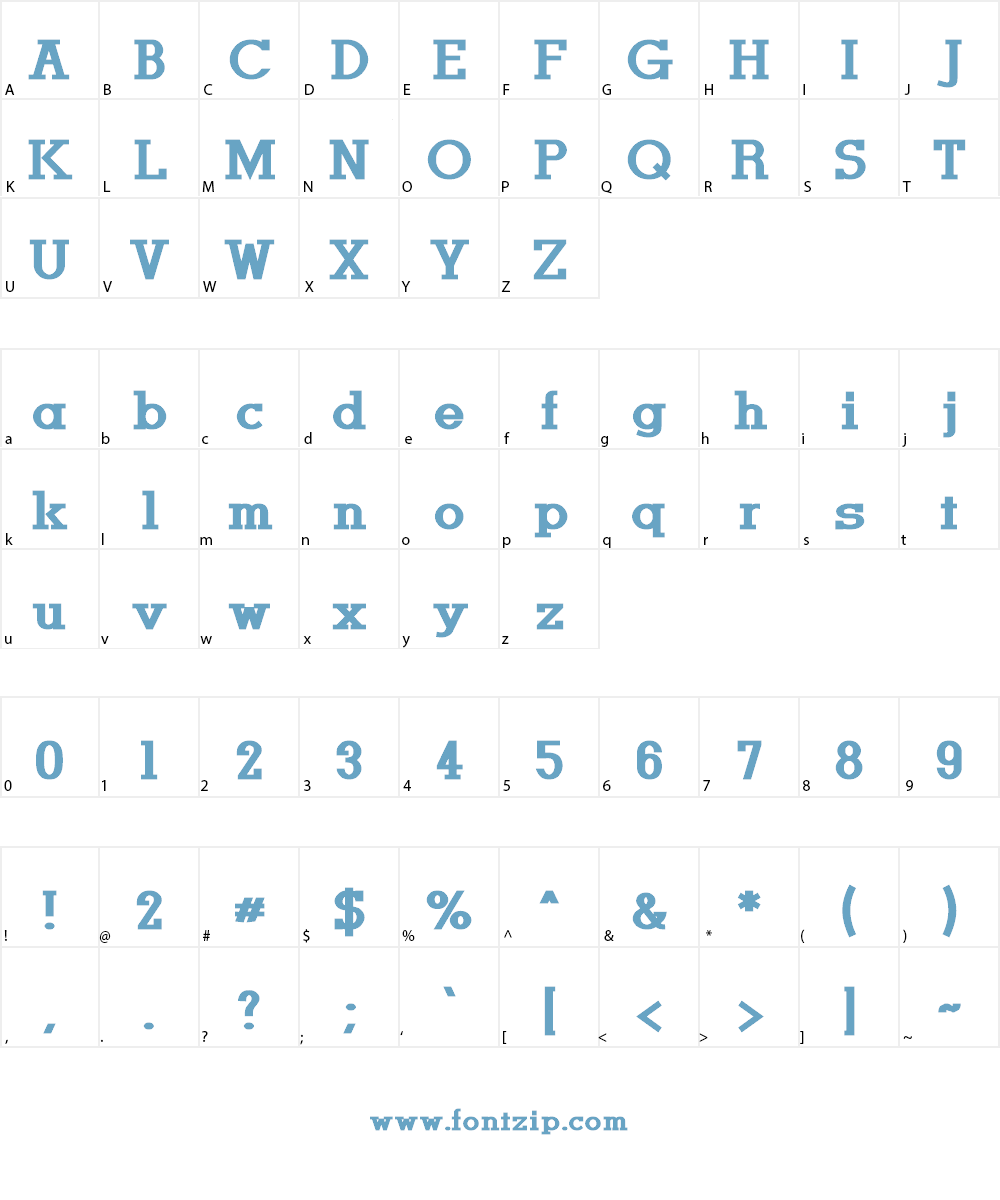
The Egyptienne was the beginning of the 19th Century England in response to the increased demand for eye-catching signage. The first was published in 1815 by Egyptienne Vincent Figgins. Mentioned for the first time the slab serif font in a few types of printing in 1820, and that in a list of auction type foundry Thorne. They were called "Egyptienne" even though they had nothing to do with the Egyptian writing. The name commemorates the name of the hijacked by the British ship that brought the Rosetta Stone in 1802 to London, at a time in which the people showed much interest in Egyptian art. The Egyptienne, and Slab Serif linear Antiqua was also the 20th Jahrhunbdert popular, and so was in 1930 Dwen developed as a geometric slab serif font to Memphis. For now, do not come up with a commercial font in Konflickt, I've decided to name the altegyptischen echoed, city, Mem-nefer ...